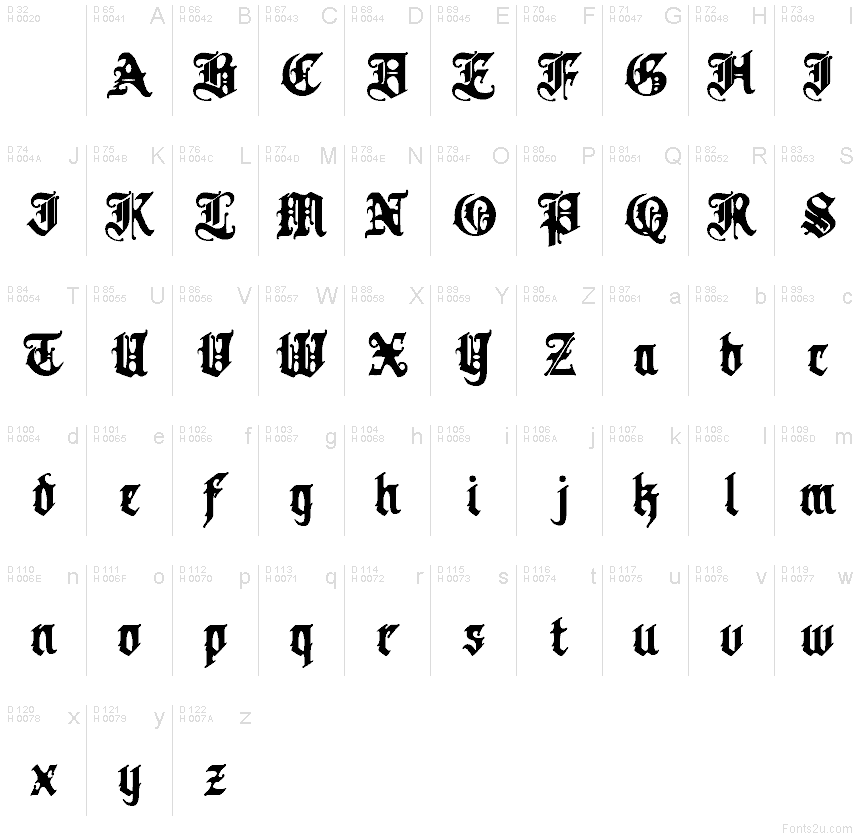
CSMorstanDrawn-Regular Demo
CS Morstan Drawn font by Craft Supply Co. is a free heavy medieval gothic font. Part of the CS Morstan family, it looks hand-cut and inked: thick black strokes clash with sharp spurs, fractured curves, and gritty edges that feel chiseled and timeworn. The rhythm is dense yet deliberate, giving headlines a ceremonial weight without turning muddy.
Using CS Morstan Drawn, you can push atmosphere on dark fantasy book covers, black metal posters, craft beer labels, tattoo badges, indie game titles, festival signage, and moody café menus. This free font shines big and tight—set it large with a touch of tracking. For copy, pair with a clean geometric sans to keep the drama readable.